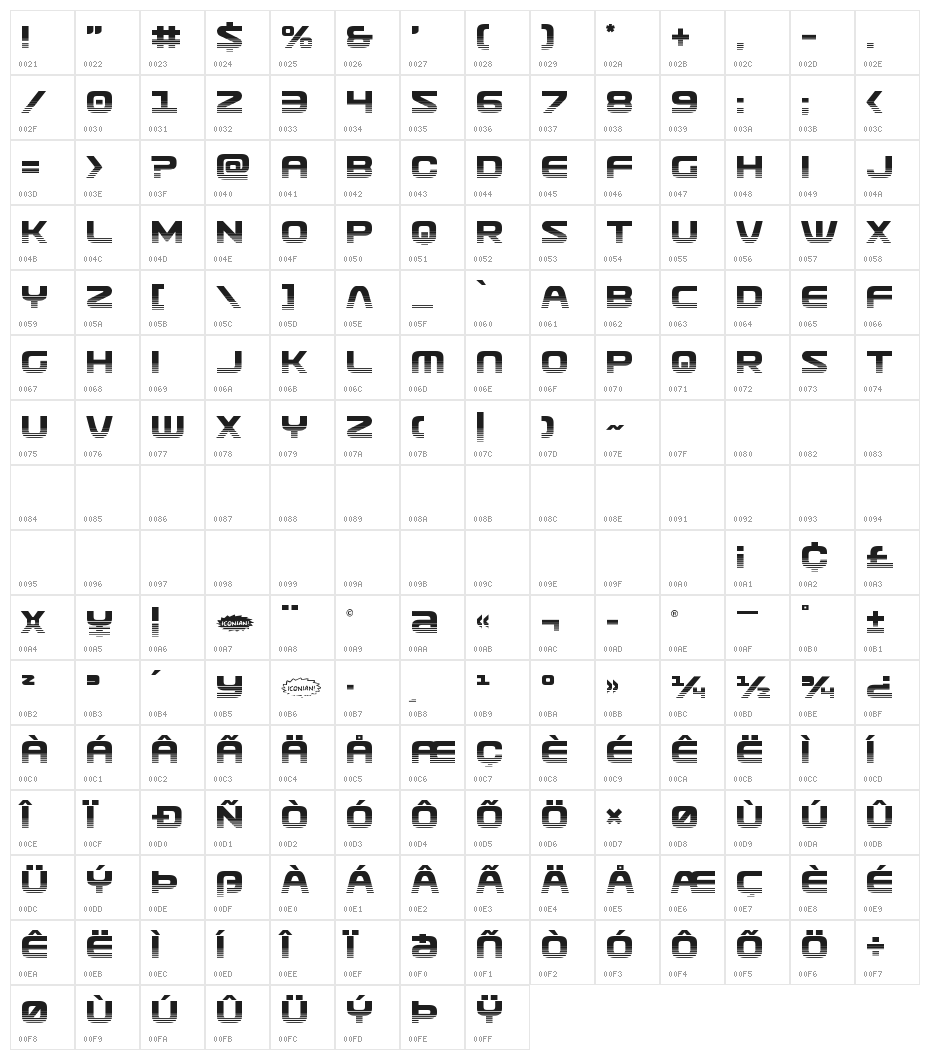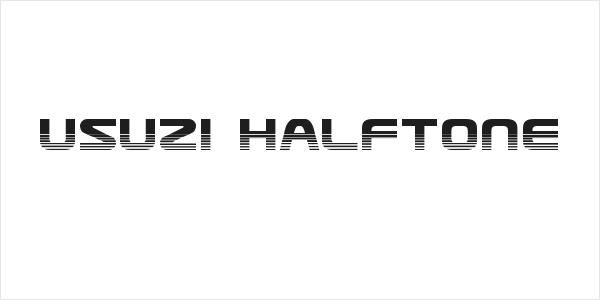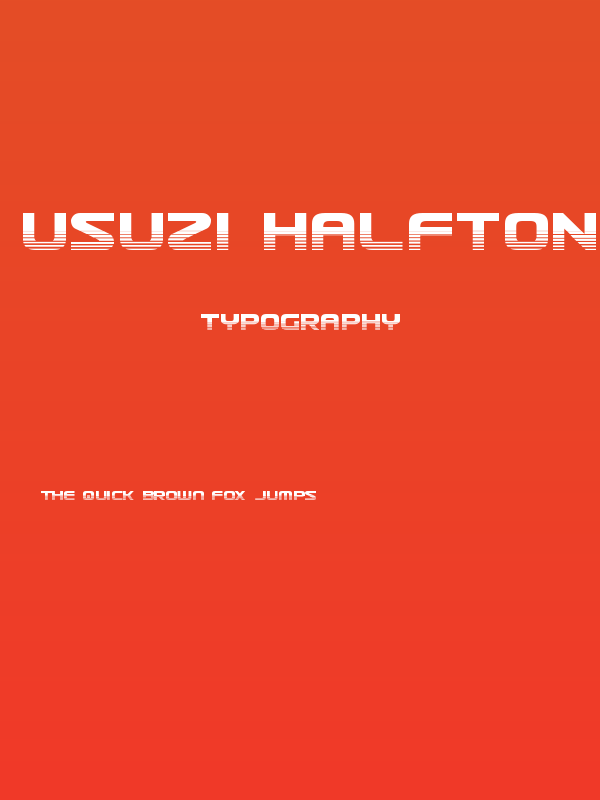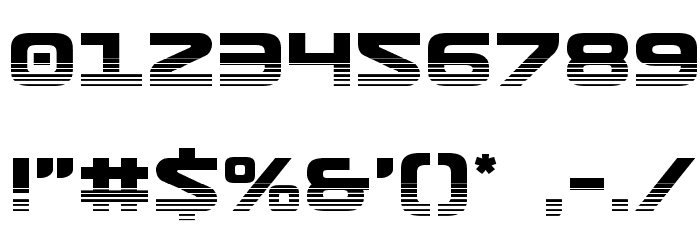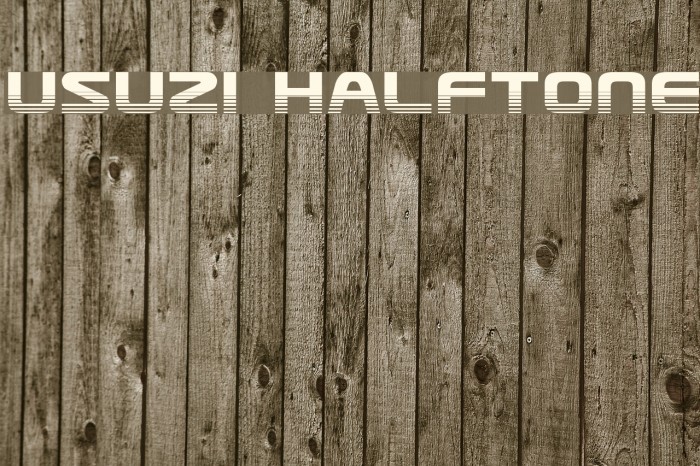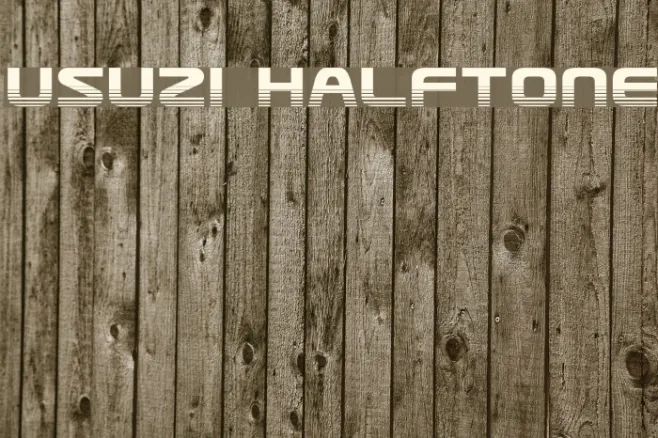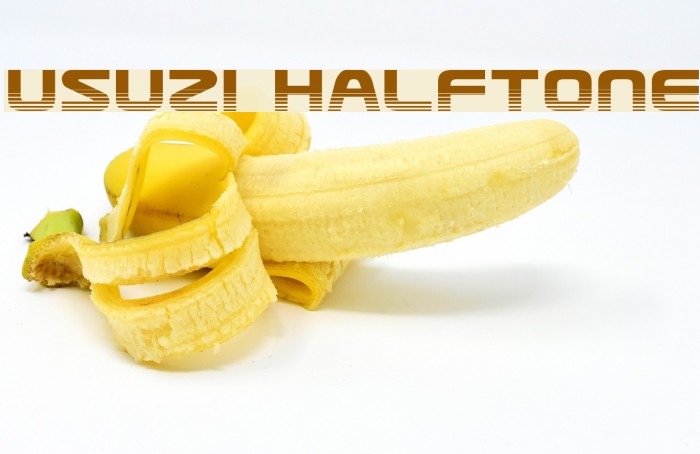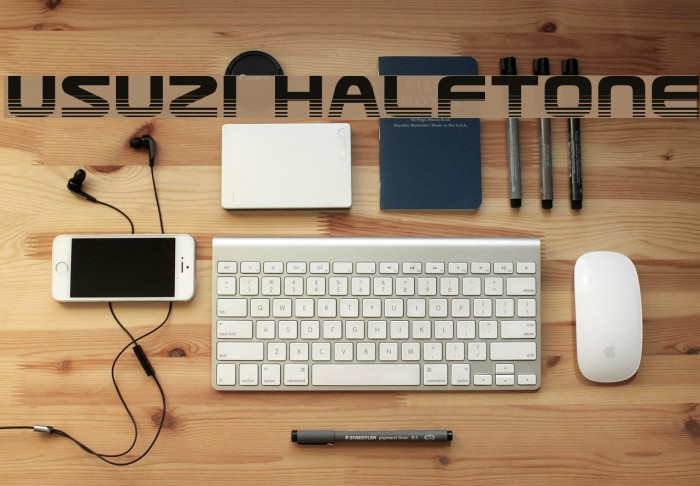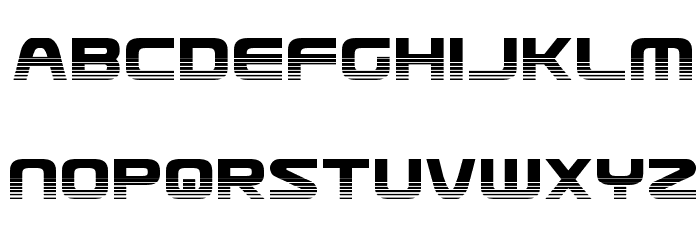
Usuzi Halftone Font
Usuzi Halftone Description
This font features a unique halftone effect, with horizontal lines creating a dynamic and futuristic appearance. The characters are bold and wide, with a distinct geometric style that gives them a modern and technological feel. The uppercase and lowercase letters maintain a consistent design, while the numbers and special characters integrate seamlessly with the overall aesthetic. The halftone pattern adds depth and texture, making it suitable for eye-catching designs.